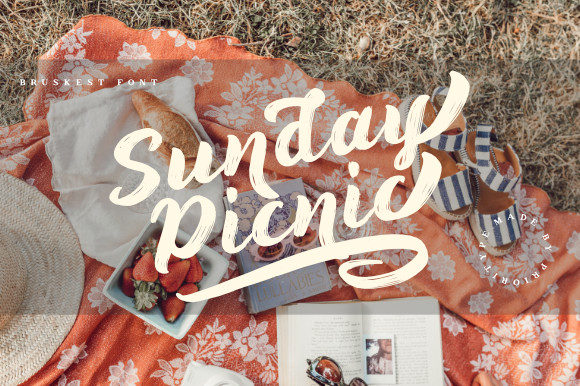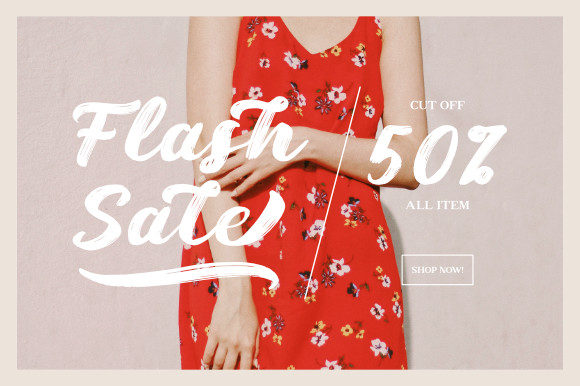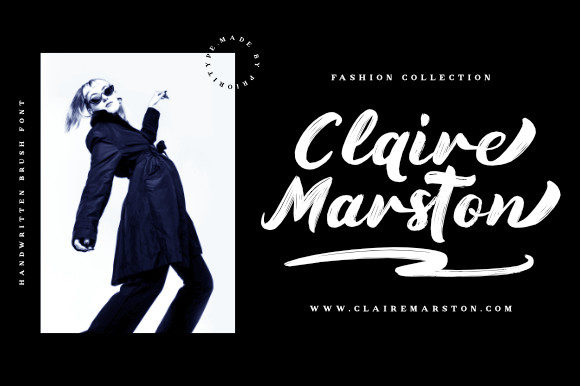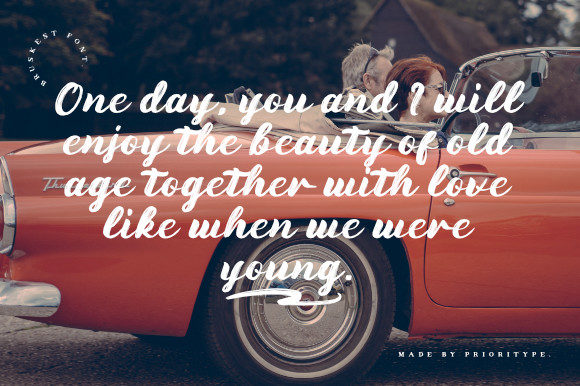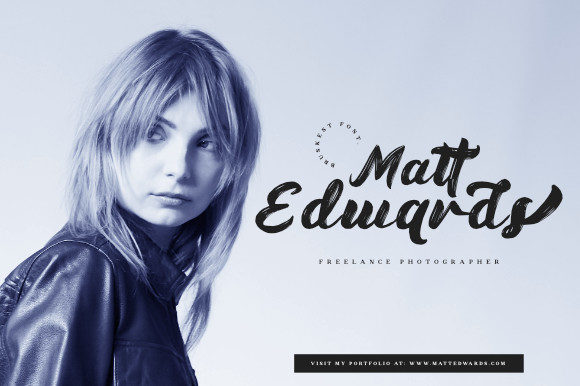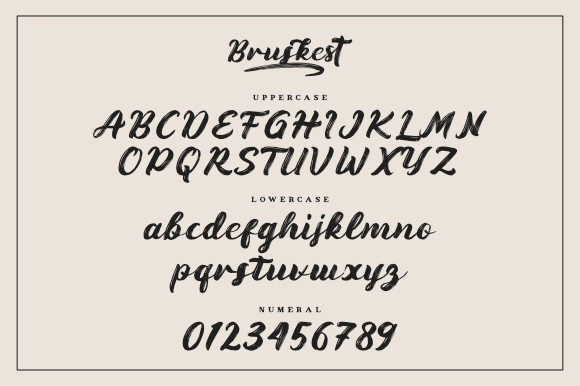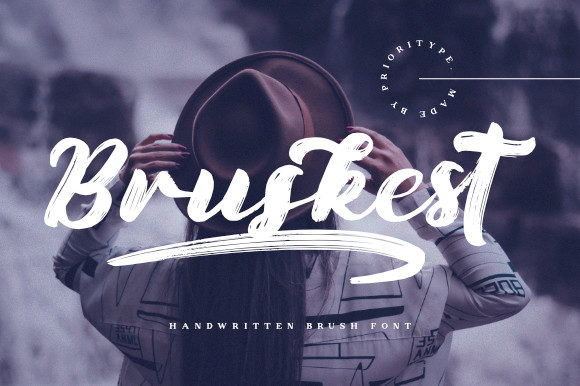
Introducing Bruskest Font: Elevate Your Designs with a Stylish and Confident Touch
Are you looking for a font that can add a bold and dynamic touch to your designs? Look no further than Bruskest Font, a gorgeous and bold handwritten font crafted to give your headlines and logotype projects a stylish edge. With its strong, confident, and dynamic feel, Bruskest is the perfect choice for designers and crafters seeking to make a statement.
The Characteristics of Bruskest Font
Bruskest Font boasts a unique and captivating design that reads as strong, confident, and dynamic. Its bold and handwritten style adds tons of nostalgic character to your designs, making it perfect for projects that require a touch of personality and flair. Whether you’re working on a logo, headline, or any other design project, Bruskest is sure to make a lasting impression.
One of the standout features of Bruskest Font is its PUA (Private Use Area) encoding. This means that you can access all of the glyphs and swashes with ease, giving you complete creative control over your designs. With PUA encoding, you can effortlessly navigate the font’s extensive character set, including alternates, ligatures, and other special characters.
Bruskest Font is a versatile and practical choice for designers and crafters working on a wide range of projects. Whether you’re creating:
• Logos and branding materials
• Headlines and titles
• Posters and flyers
• Business cards and stationery
• Digital graphics and social media assets
Bruskest Font is the perfect tool to help you achieve your creative vision. Its bold and dynamic style makes it ideal for projects that require a confident and attention-grabbing aesthetic.
• Unique and captivating design: Bruskest Font boasts a one-of-a-kind design that is sure to make your projects stand out.
• PUA encoding: With PUA encoding, you can access all of the glyphs and swashes with ease, giving you complete creative control.
• Versatility: Bruskest Font is perfect for a wide range of projects, from logos and headlines to posters and digital graphics.
• Nostalgic character: Bruskest Font adds tons of nostalgic character to your designs, making it perfect for projects that require a touch of personality and flair.
In conclusion, Bruskest Font is a stunning and versatile font that is perfect for designers and crafters seeking to add a bold and dynamic touch to their projects. With its strong, confident, and dynamic feel, PUA encoding, and nostalgic character, Bruskest is the perfect choice for anyone looking to elevate their designs. So why wait? Download Bruskest Font today and start creating stunning designs that make a lasting impression!